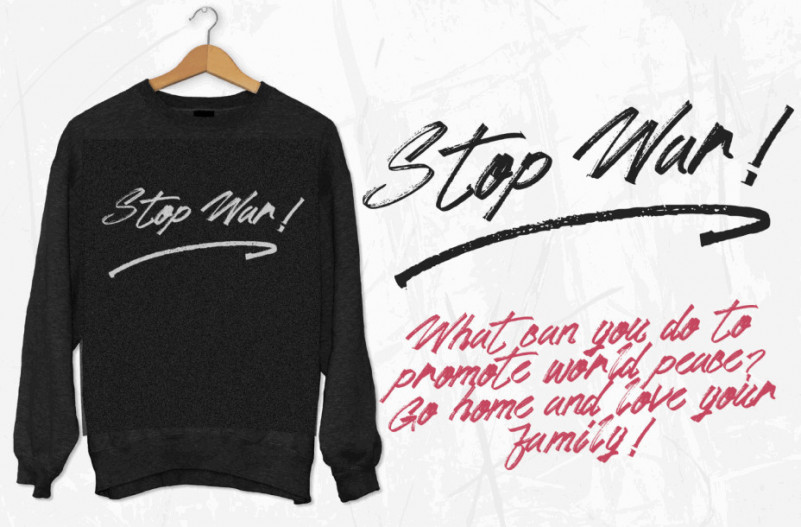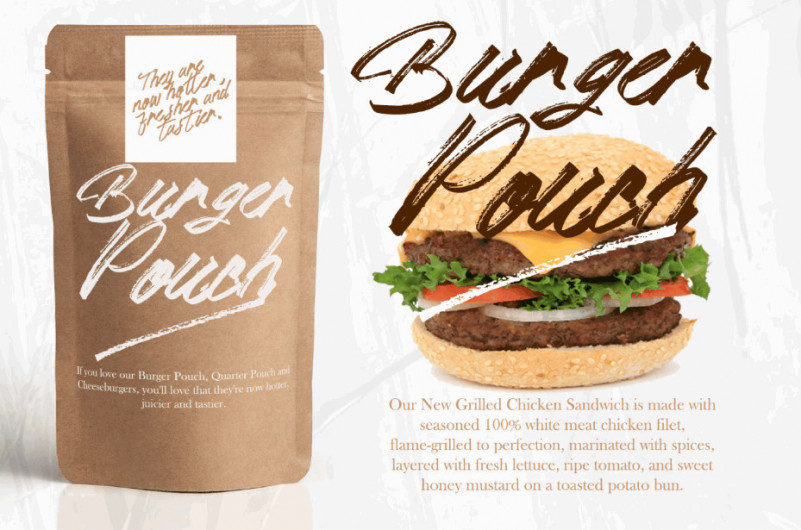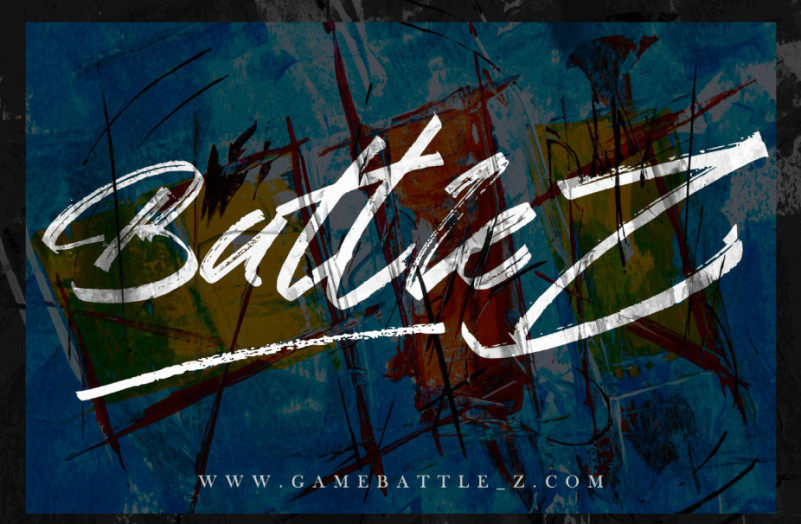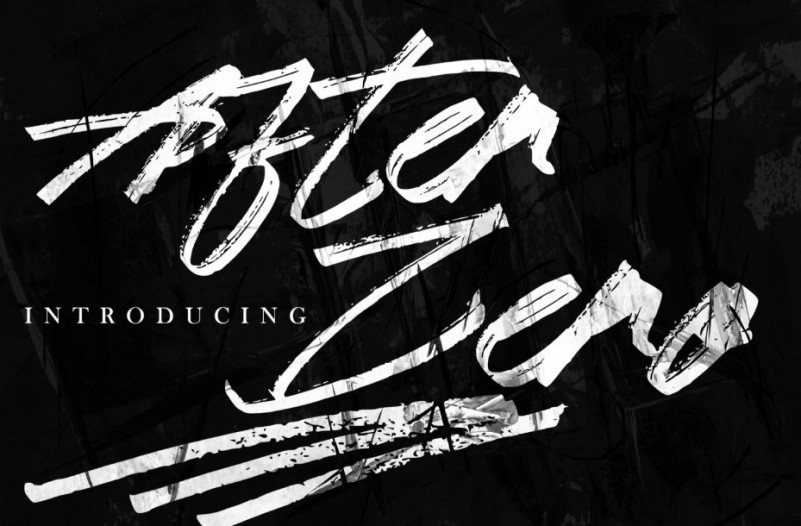
After Zero Font
Befonts introducing new modern brush font “After Zero Brush Font”. A handmade brush font! This bold, use it to stand out from the crowd and to add a little edge to your work! After Zero is a brush font which you can use and enjoy again and again, for anything from promotional material and handwritten quotes, to product packaging, merchandise and branding projects.